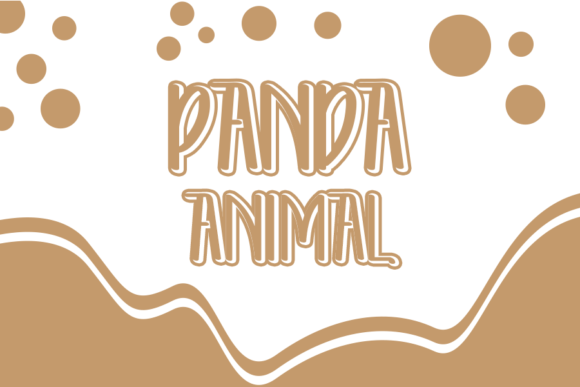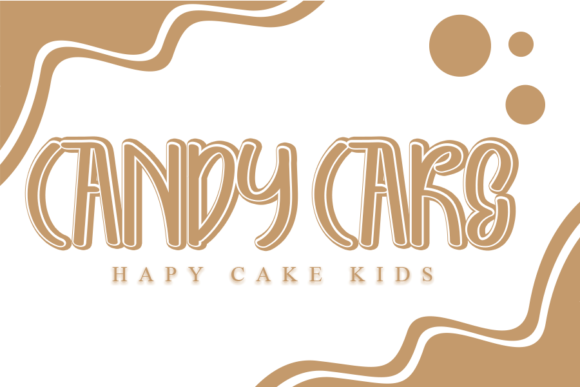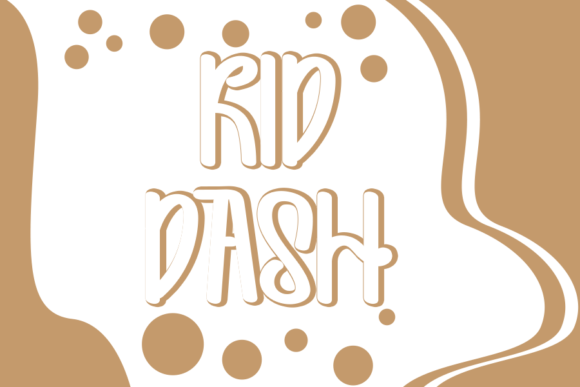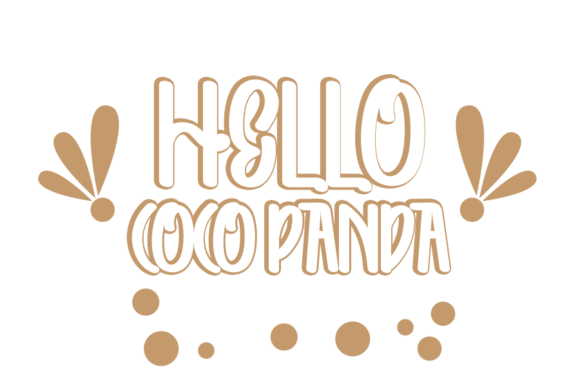
Introduction to Diary Rabbit Font
Diary Rabbit is a beautiful and friendly handwritten font.
Its natural and well balanced style makes it incredibly fitting to a large pool of designs The only limit is your imagination.
Diary Rabbit Font offers exceptional quality and versatility, making it a valuable addition to your design toolkit. Whether you’re creating for personal projects or commercial use, Diary Rabbit Font delivers professional results.